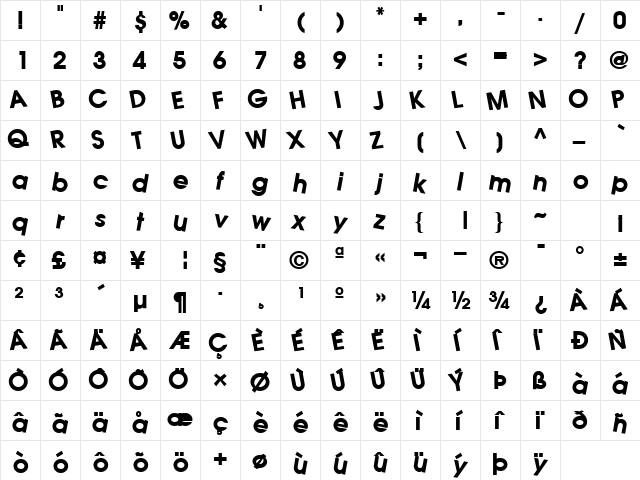
JohnJones10 Bold
Design Context for JohnJones10 Typeface
JohnJones10 is a composed and adaptable typeface that performs quietly and consistently across a wide range of design contexts. The heavy weight commands attention and anchors typographic hierarchies.